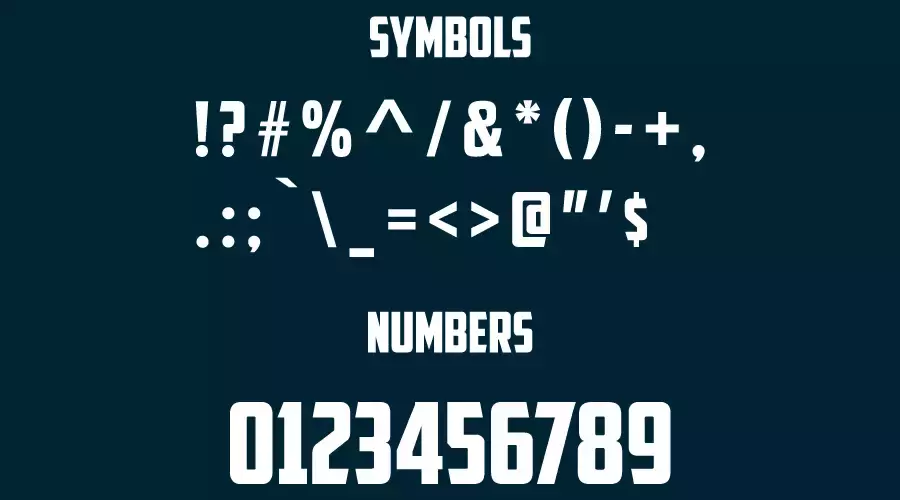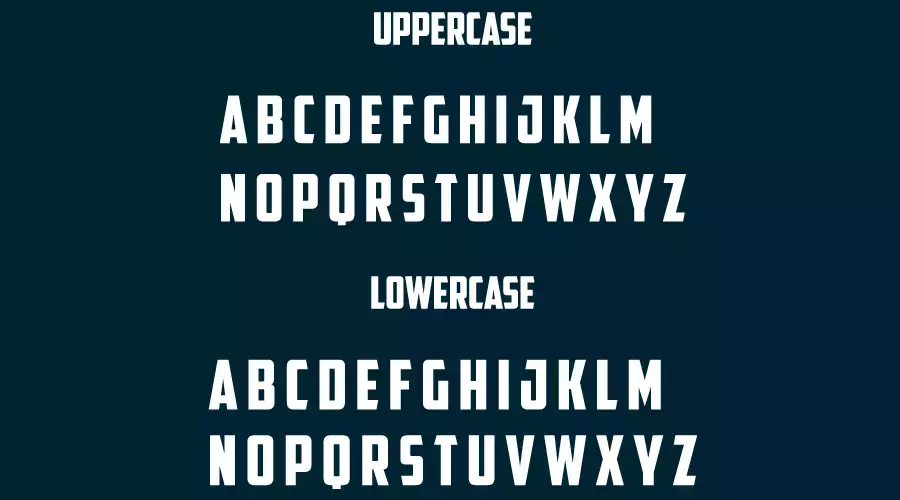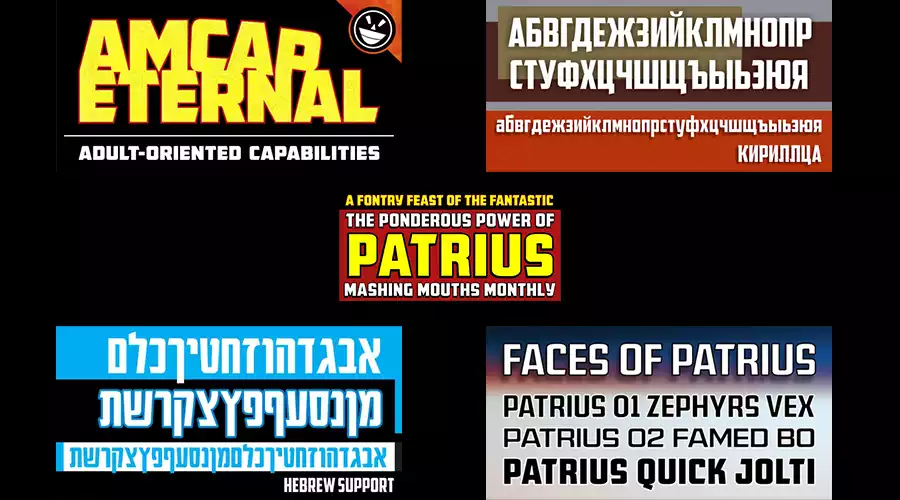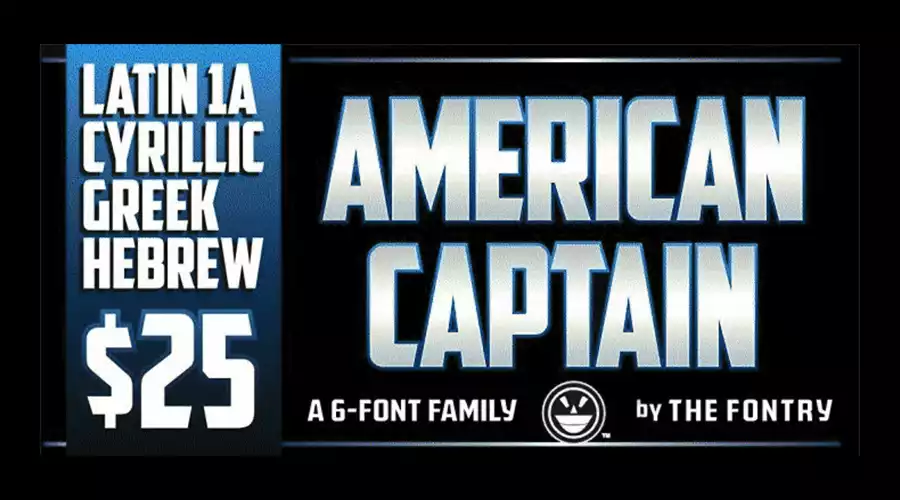
About American Captain Font
The American Captain font is a bold, vintage-style font created by designer Michael G. Adkins in 2010. The font was modified and published in 2011 under the copyright ownership of The Fontry. It’s a font inspired by Captain America: The First Avenger’s title logo.
The typeface is narrow and bold, sharp and blunt, heavy and tall. But what makes it unique are its origins. Dating back to at least the 1940s, it has been revived and revamped by sign painters, hand-letterers, and font designers.
This font symbolizes the strength of an American patriot who saved the world from tyranny. His unyielding determination and fighting spirit are captured in this font, dedicated to the Captain America knows and respects. Enjoy the power of the American Captain font!
The free version of this American Captain font is now available in uppercase Greek and Cyrillic letters. For commercial users, it is also available as a 5-font family with full language support for Central European characters, Cyrillic, Greek, and Hebrew. OpenType features include small caps, fractions, stylistic sets, and more.
| Classification | Sans serif |
It has a strong, classic feel and is perfect for logos, headlines, posters, and more.
American Captain is a great choice for anyone looking for a bold vintage font that stands out from the crowd.